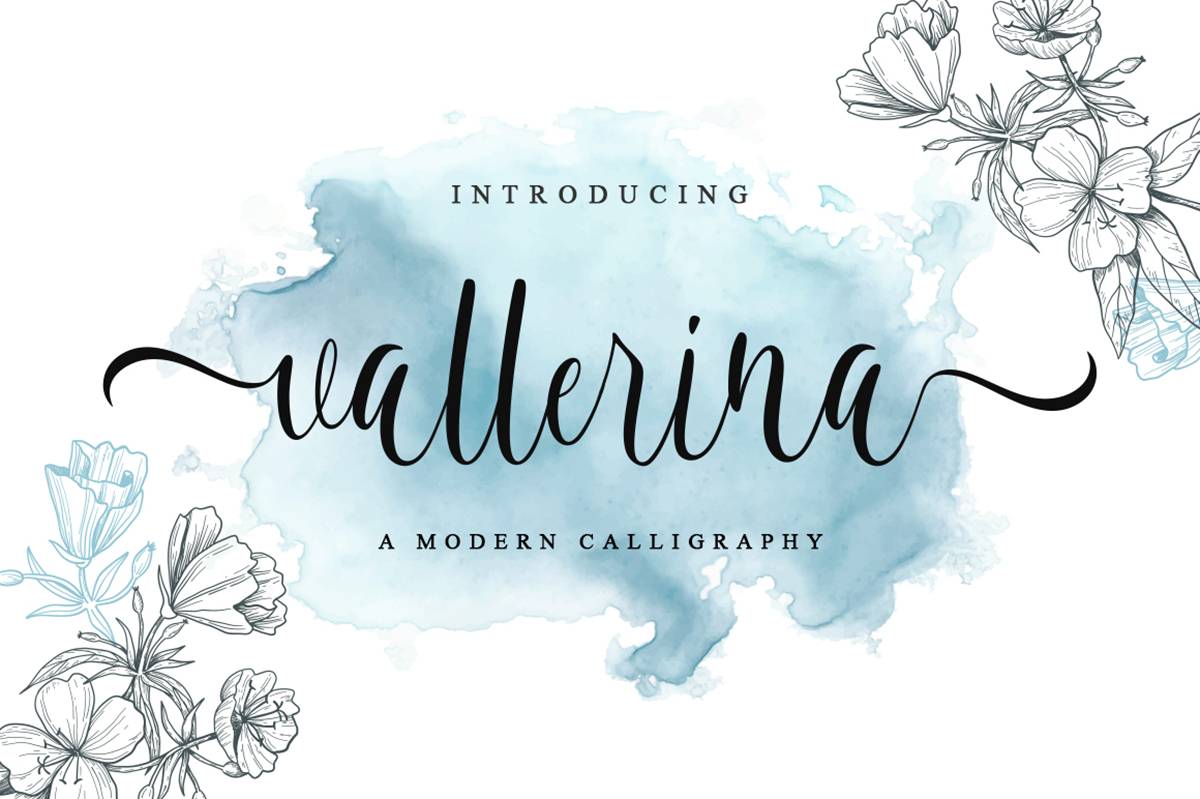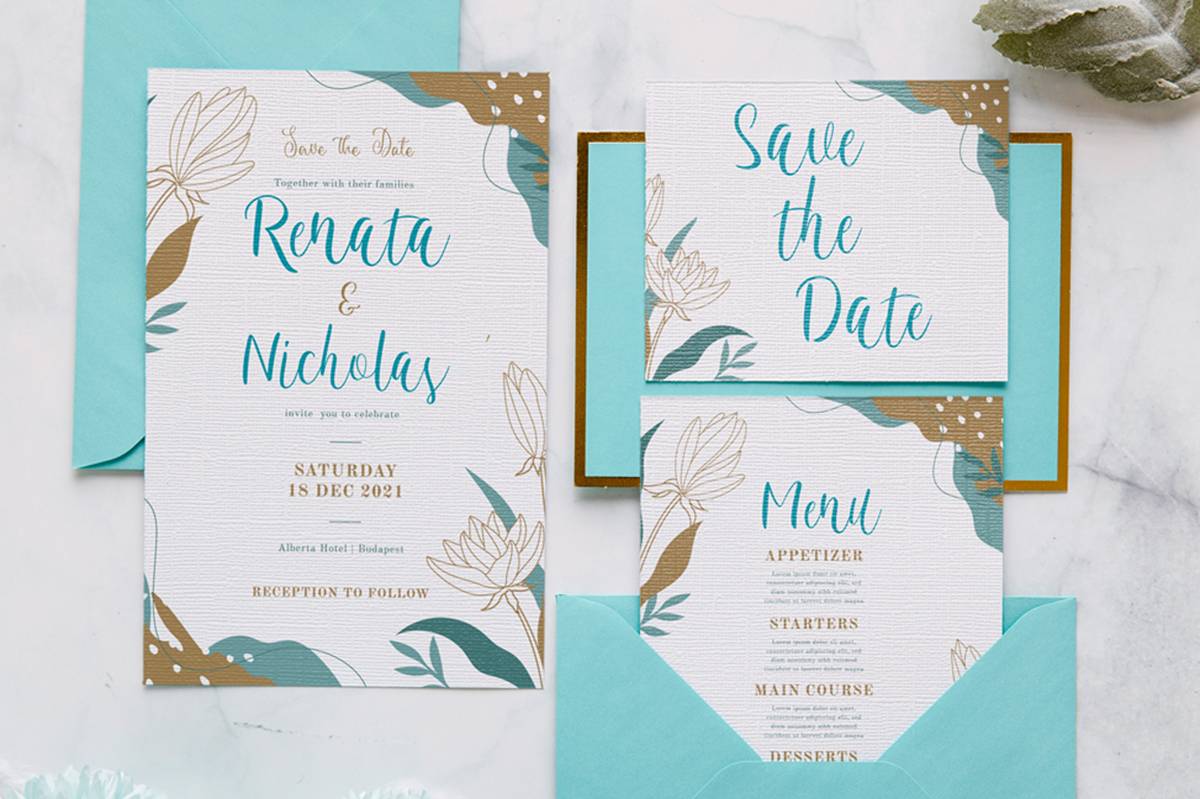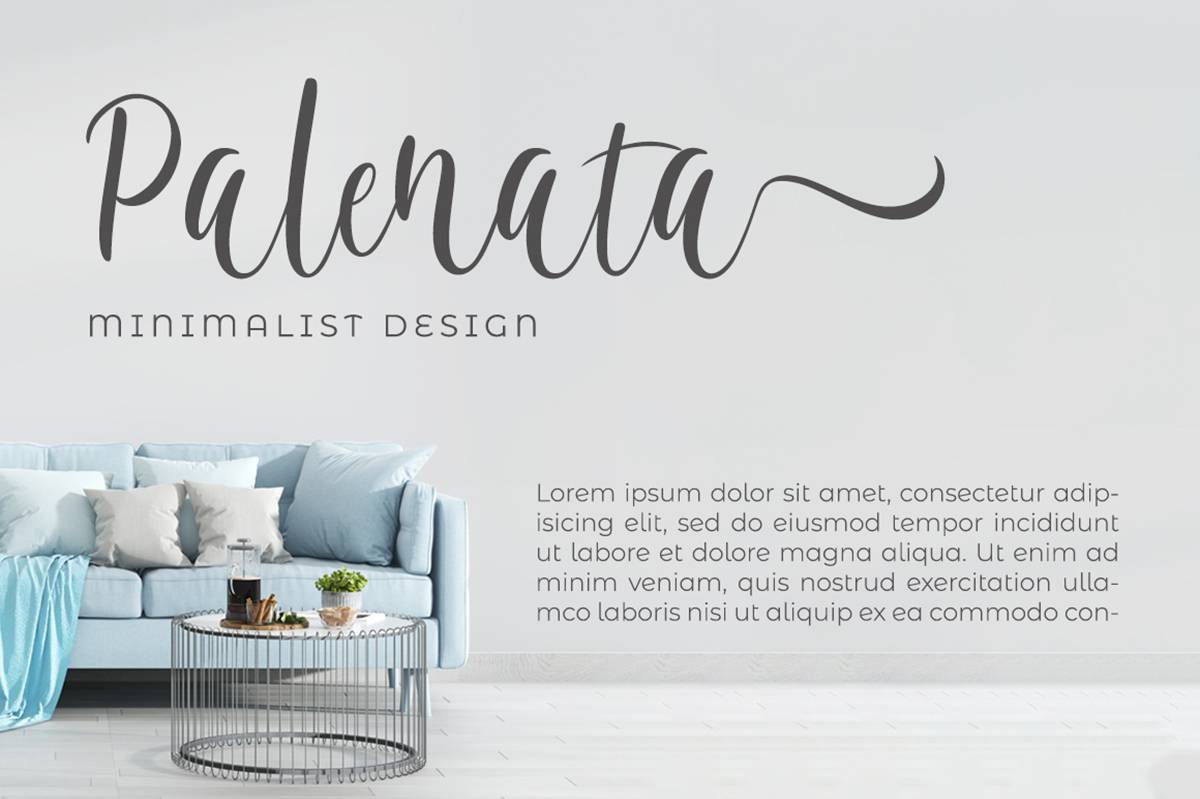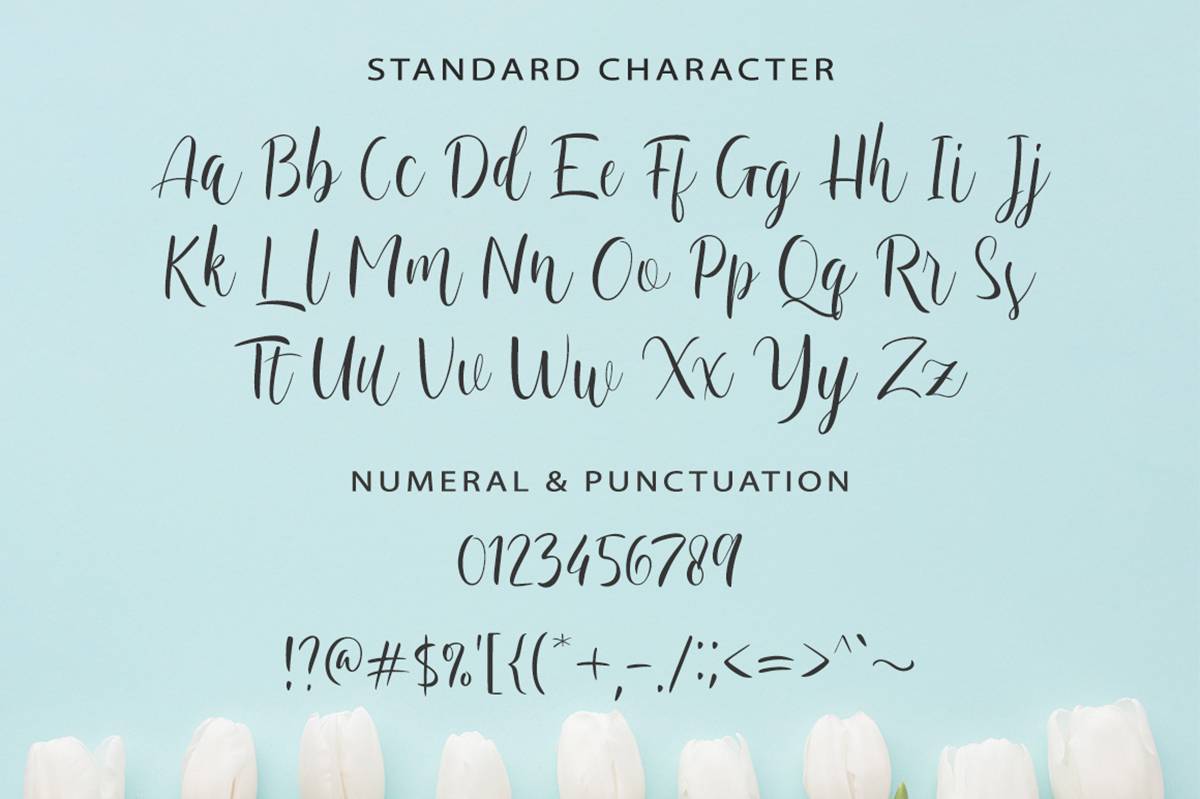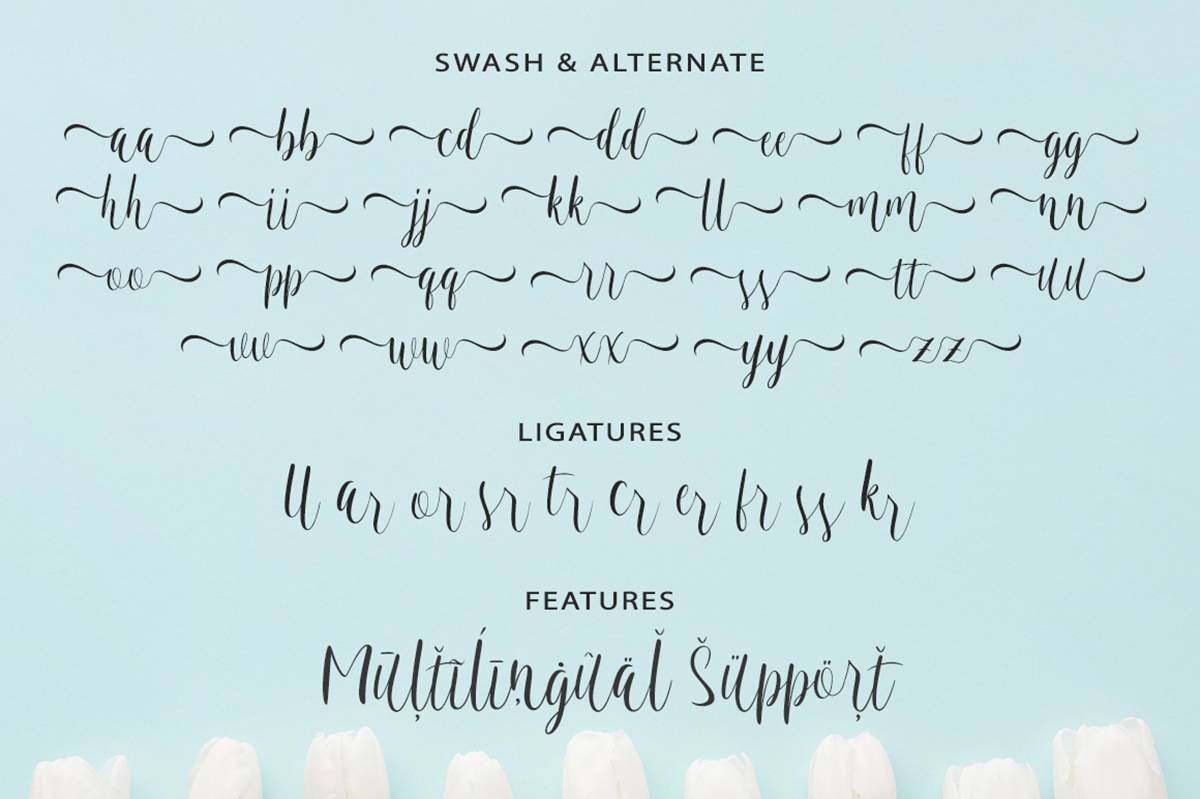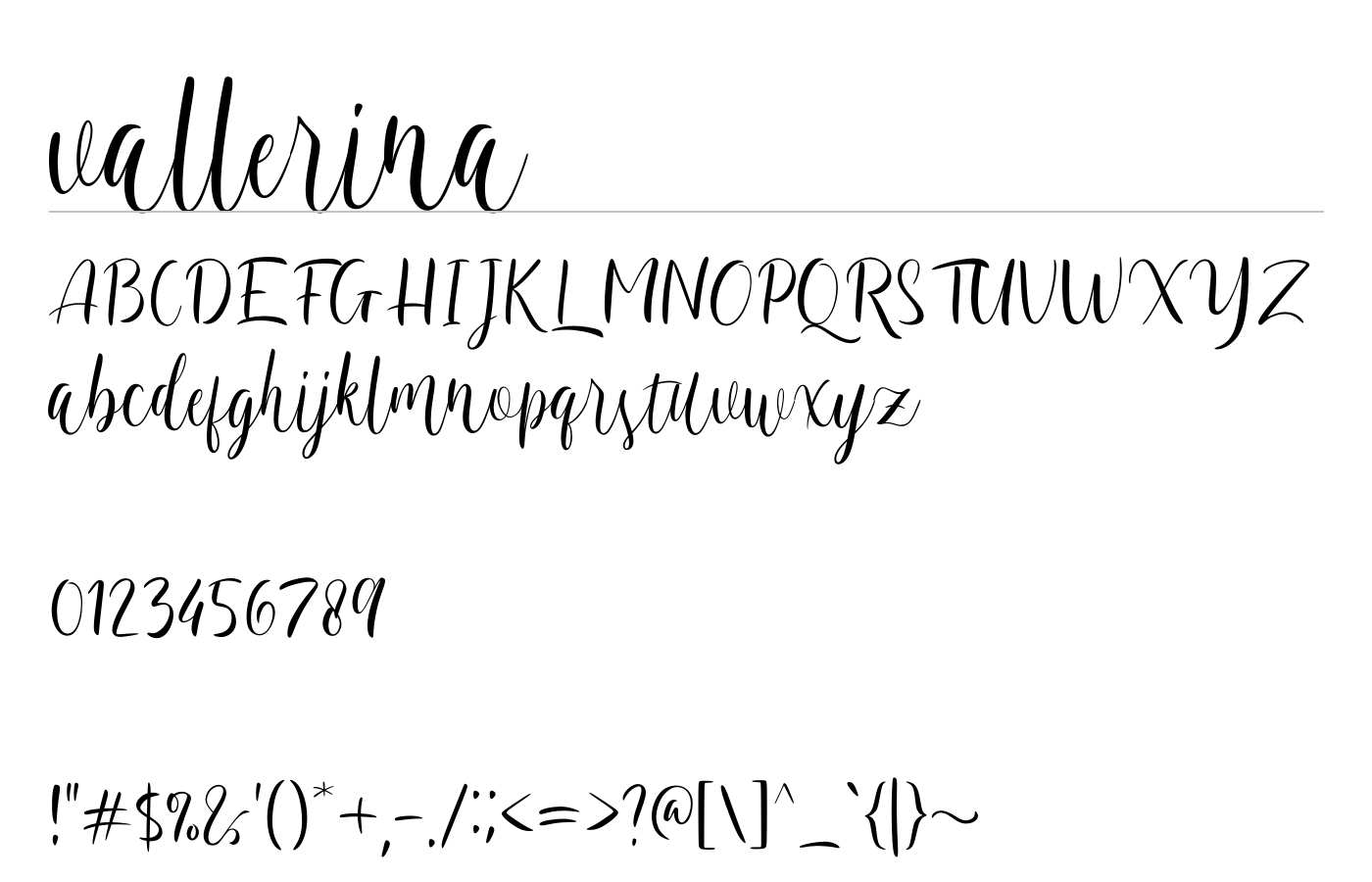
Vallerina Script is a delicate, handwritten script font with a light weight and elegant flow, featuring slender, slightly condensed letterforms with smooth, calligraphic strokes. Its graceful uppercase and lowercase characters, with distinctive swashes and varied line thickness, evoke a charming and feminine style perfect for wedding invitations, fashion branding, and elegant editorial design. This font works best where a soft, personal touch is needed, adding a refined yet approachable mood to logos, packaging, and headers.
Vallerina Script Font
About Vallerina Script Font